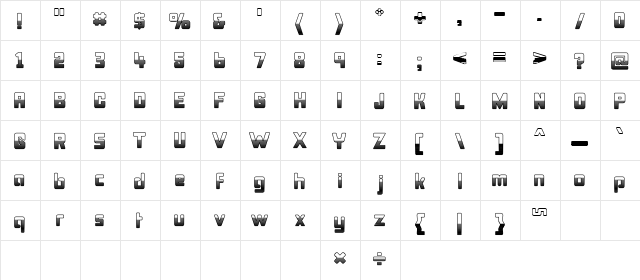
Bonk Outercut Regular
Design Context for Bonk Outercut Typeface
Bonk Outercut is a composed and adaptable typeface that performs quietly and consistently across a wide range of design contexts.